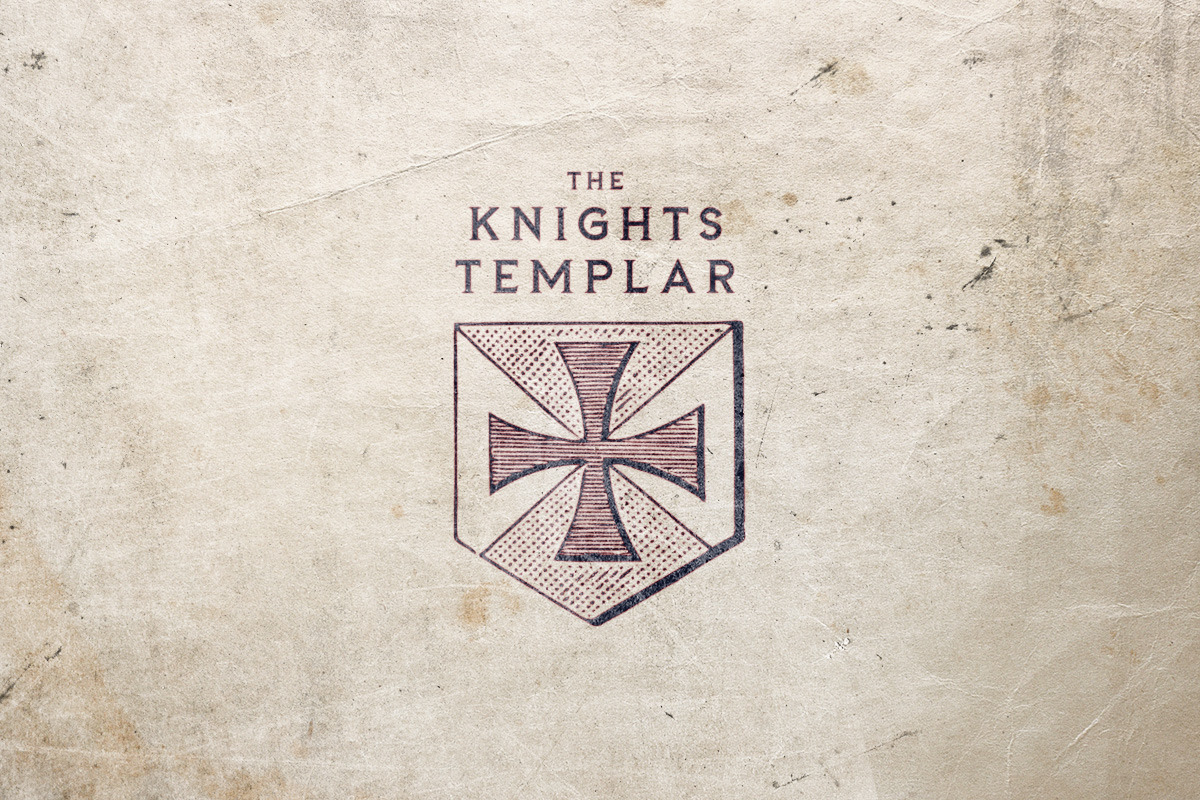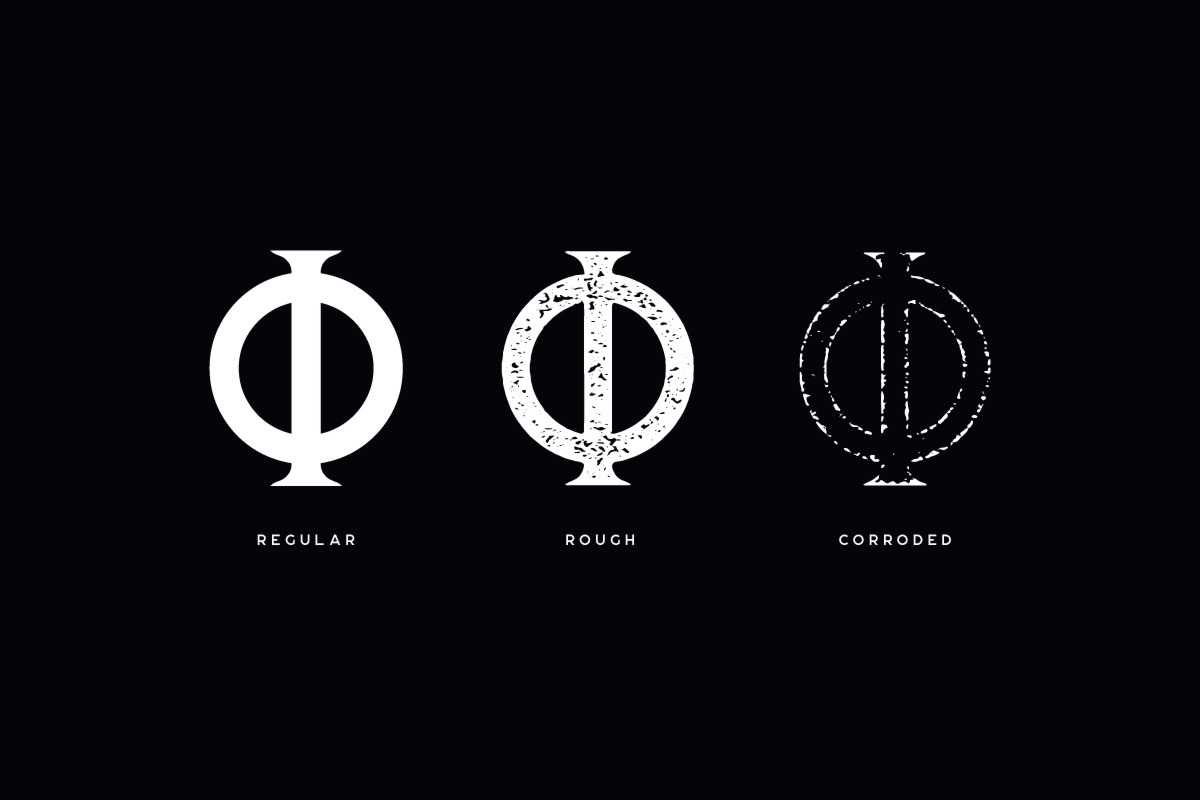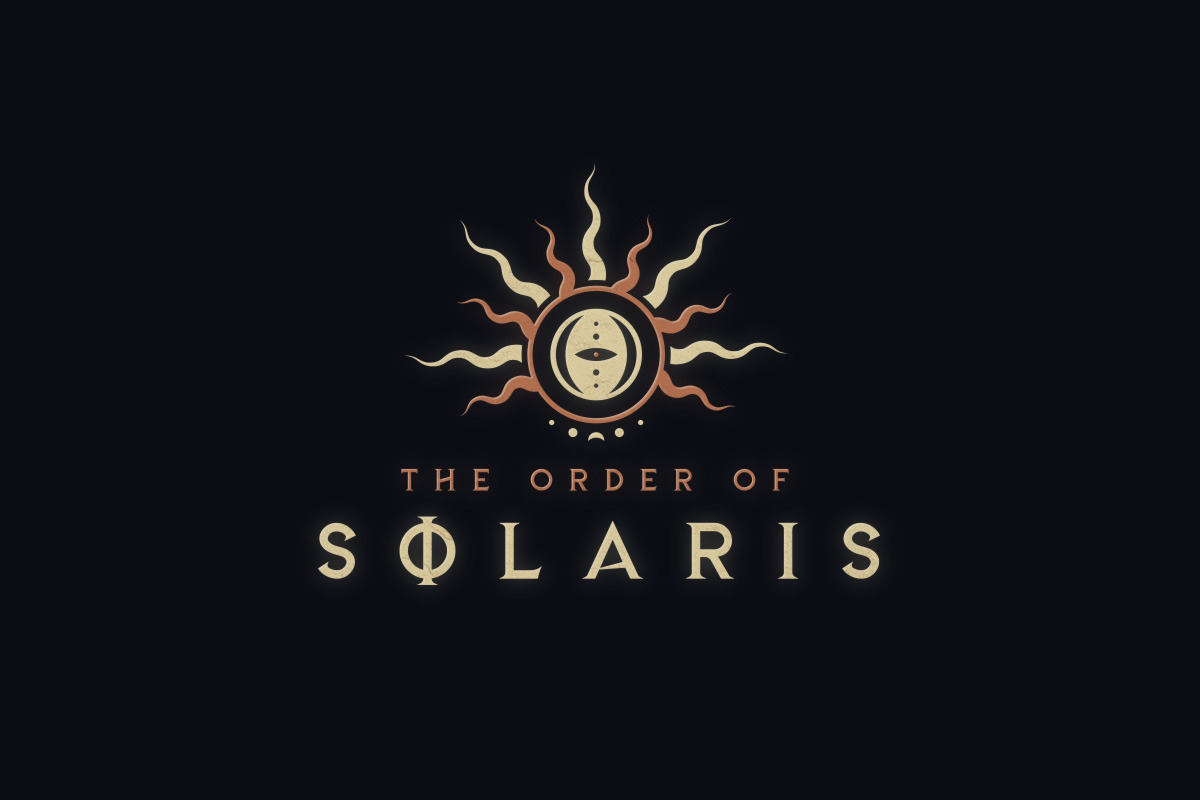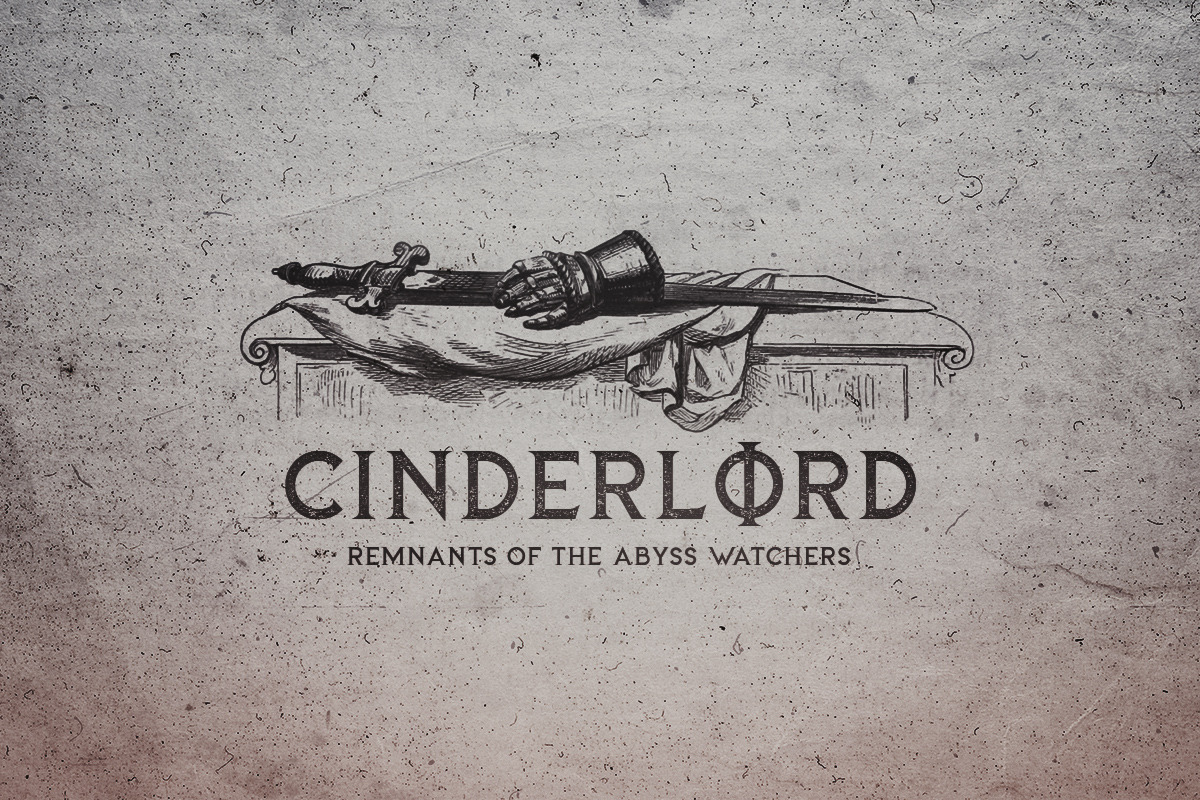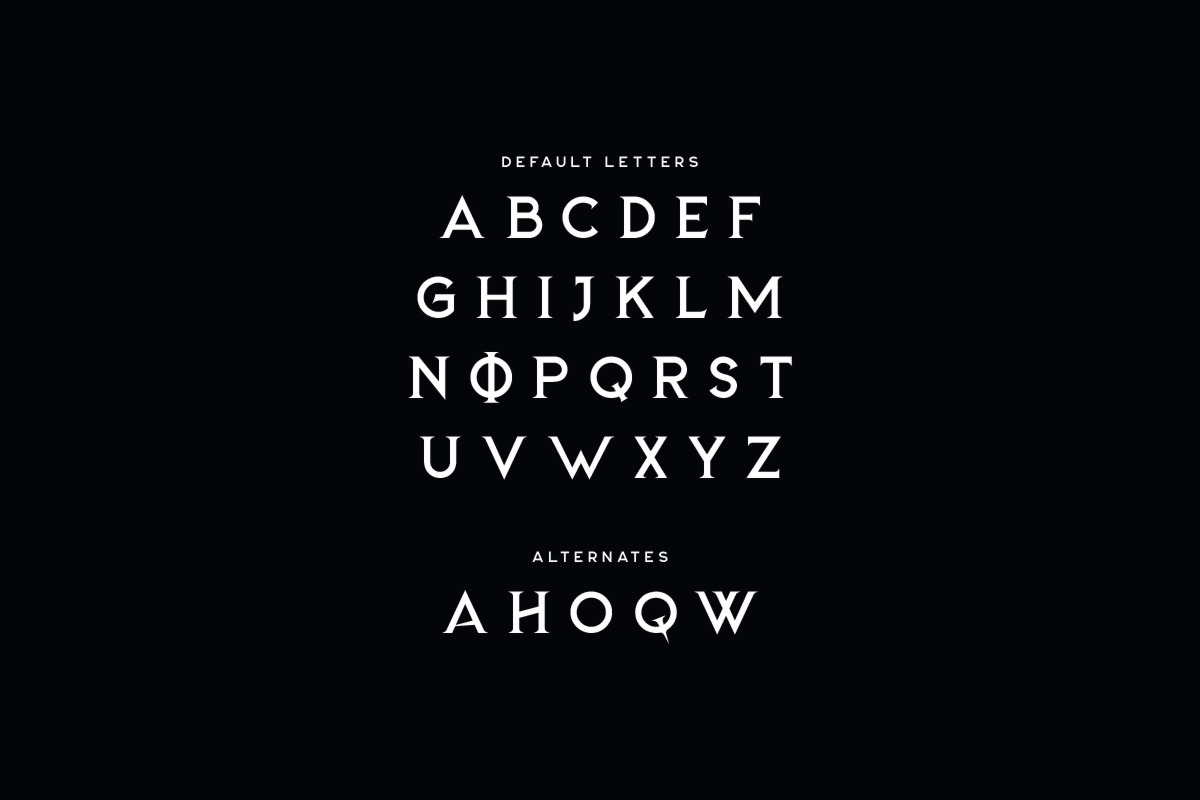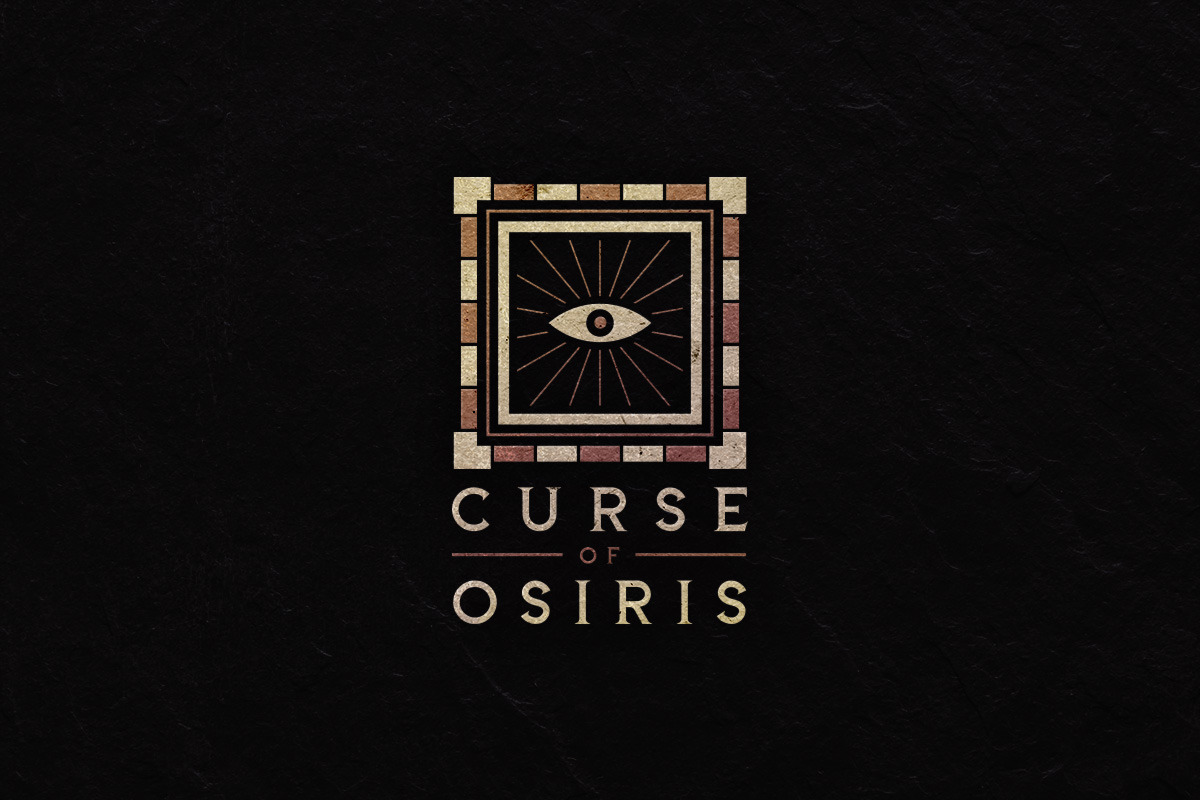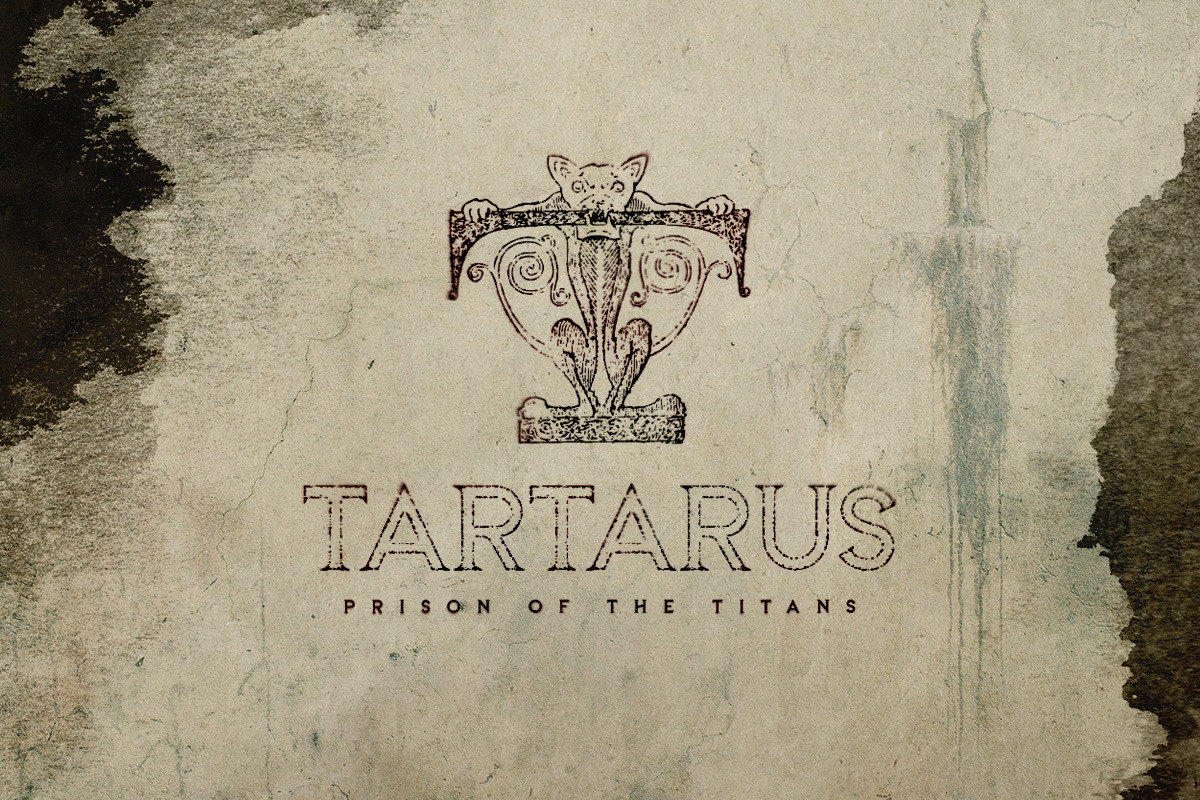
Belmont Typeface
Belmont is a medieval font family with three distinct styles. It includes uppercase multilingual letters, alternate letters, numbers and punctuation.
- It includes uppercase multilingual letters, alternate letters, numbers and punctuation.
- Belmont Regular
- Belmont Corroded
- Belmont Rough
Why Belmont Typeface is worth a look
Belmont Typeface by Tugcu Design Co. fits naturally into Branding, posters, packaging, typography.